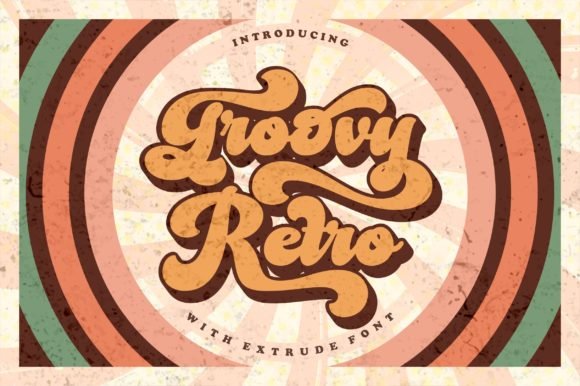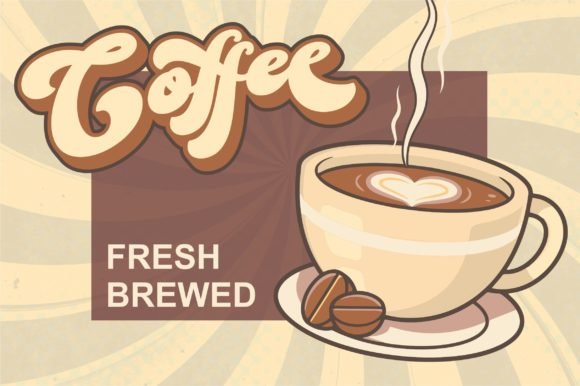
Looking for a stylish vintage script font to boost your brand identity? This selection of 22 hand-picked fonts offers everything from groovy 80s vibes to mid-century signage styles, ensuring your logos and posters stand out with authentic flair.
Top Vintage Script Fonts for Nostalgic Typography
Typography holds the power to transport an audience straight into a specific era. When a project demands the warmth of mid-century signboards, the elegance of 1950s advertising, or the raw character of old-school hand lettering, standard modern typefaces simply fall short.
This handpicked collection features 22 distinct script typefaces featuring rich swashes, textured edges, and timeless calligraphic flow. Whether the goal is crafting bold product packaging, nostalgic logos, or eye-catching print graphics, these fonts deliver genuine vintage character with effortless style.
1. Groovy Font: Classic Aesthetics Meet Modern Style
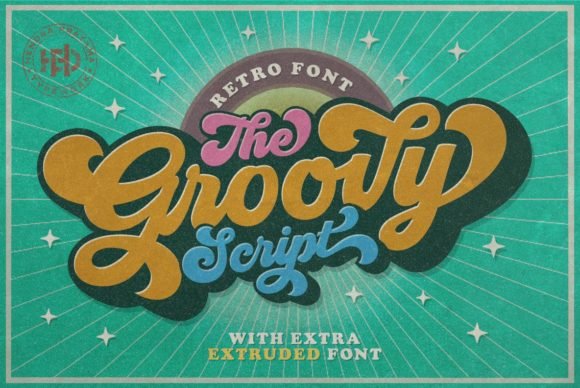
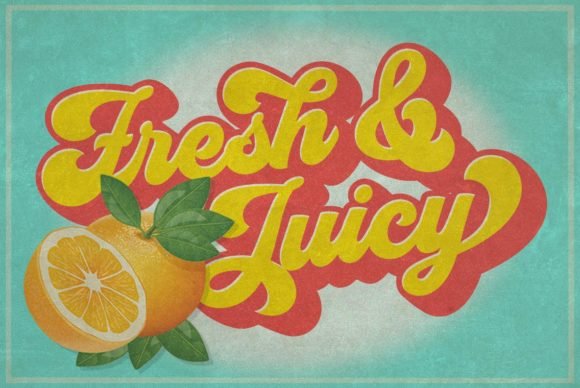
I fell in love with Groovy the moment I saw its bold, bubbly curves that instantly transport me back to the vibrant street ads of the late 60s. As a designer always hunting for the perfect vintage script font, I find this one stands out because it doesn’t just mimic the past; it captures that specific “funky” soul. The thick strokes and playful connections make it feel alive on the screen, offering a warmth that sterile modern fonts usually lack.
I personally recommend using it for bold logotypes, eye-catching posters, and retro-themed packaging where you need the text to jump out and grab attention. One of its best perks is the included extruded version, which allows you to create a 3D effect without any extra effort. If you want to give your work a genuine nostalgic feel and a bit of rhythmic flow, this vintage script font is a must-have in your creative toolkit.
2. Batuphat: The Perfect Vintage Script Font For Modern Designs
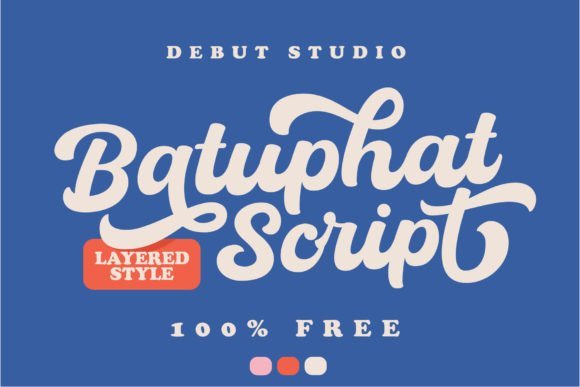
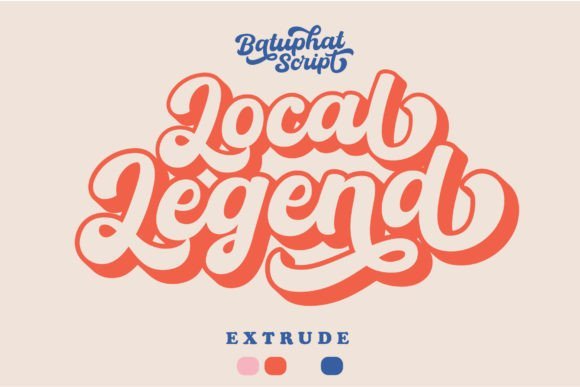
Finding a script that genuinely bridges the gap between classic calligraphy and modern energy is always a huge win, which is why I’m so drawn to Batuphat. It has this natural, confident flow that feels both authentic and undeniably cool, making it far more dynamic than your typical, rigid script. The bold weight ensures it gets noticed, but it keeps that hand-drawn, refined touch that defines a truly great vintage script font, stopping it from feeling too computerized.
I love using this for projects that need personality, like bold branding, distinctive headlines, or custom event stationery where you want to add a luxurious, memorable signature. Its real advantage is adaptability; it feels just as at home on an artisanal product as it does on a contemporary podcast graphic. When I want that perfect balance of sophistication and strength, I consistently choose this stunning vintage script font to give my typography real soul.
3. Vintage: Assertive Style For Modern Projects
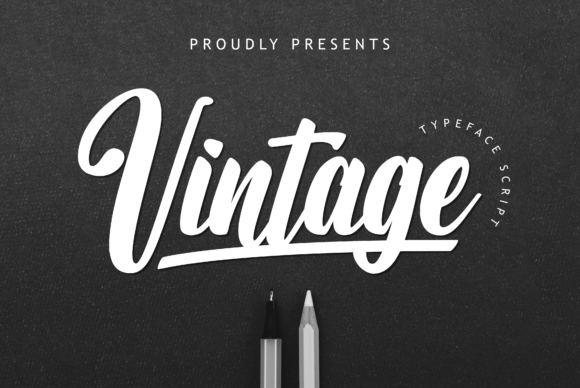
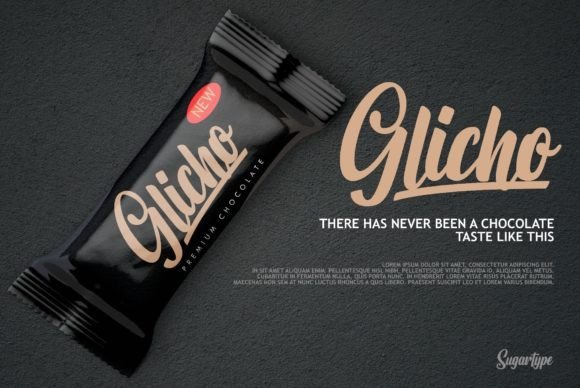
I immediately noticed how Vintage manages to look both fancy and strictly professional at the same time. It is a cursive typeface that feels neatly polished, avoiding the messy look some hand-drawn styles have. When I use this vintage script font, the results feel assertive and attractive, mainly because the lines are so carefully balanced. It has a certain weight to it that makes words feel important without losing that classic, fluid charm.
I suggest using this one for high-end headlines, custom logos, and creative crafts that need a human touch. It also works incredibly well for apparel design and merchandise projects, as it stands out beautifully on fabric and textured backgrounds. The main advantage here is its versatility; it’s clean enough for a business card but stylish enough for a trendy t-shirt. This vintage script font is a solid choice when you want your message to look both organized and artistic.
4. Raphila Retro: Groovy Lettering Made Simple
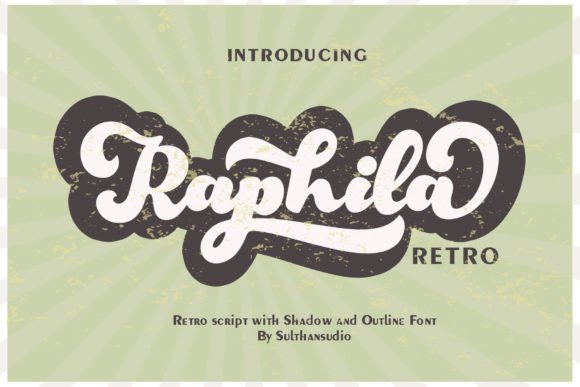
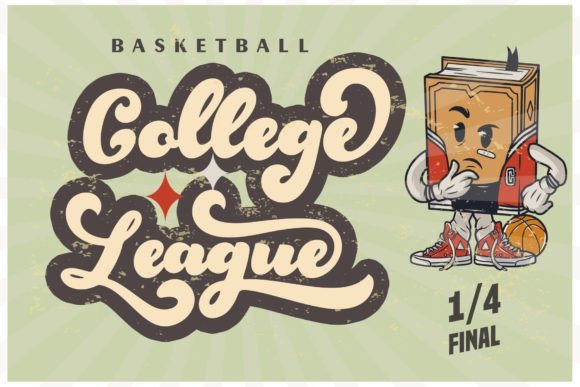
I was immediately struck by how Raphila Retro perfectly captures that heavy, groovy aesthetic of the 70s and 80s. It feels like a genuine piece of history, blending bold typography with the kind of flowing lines you’d see on a classic college sports pennant or a retro music poster. As a fan of the vintage script font style, I appreciate how this typeface doesn’t hold back on personality—it’s loud, confident, and carries a rhythmic energy that makes any word look like a custom-designed emblem.
I highly recommend choosing this for retro badges, eye-catching t-shirt designs, and authentic packaging where you want a nostalgic feel. It is also fantastic for posters, signs, and book covers that need a strong visual presence. A huge technical plus is that it’s PUA encoded, giving you easy access to all those beautiful extra glyphs and swashes without needing complex software. This vintage script font is a powerhouse for anyone looking to create designs that feel both classic and professionally executed.
Final Thoughts
Nostalgia is a powerful tool in design, and these 22 fonts prove that retro styles are more relevant than ever. I hope this collection helps you find the perfect vintage script font to bring your creative vision to life with style and grace.